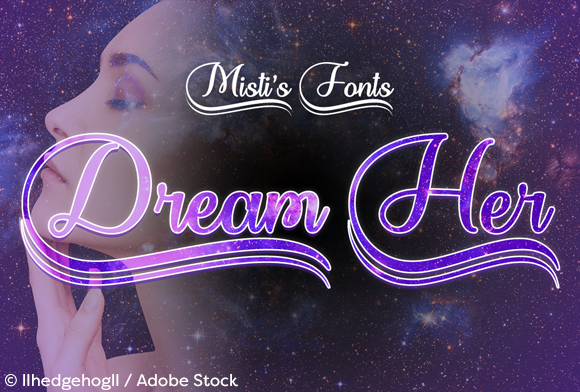
Dream Her Font
In a world of digital connections, the art of penmanship is experiencing a renaissance with Dream Her Font – an exquisite script typeface meticulously crafted to capture the elegance of handwritten calligraphy.
Unleash your creativity, let your words dance upon the screen, and bewitch your audience with invitations, logos, menus, book covers, and an array of design projects that radiate charm, sophistication, and a touch of whimsy.
Step into the realm of Dream Her Font, where each uppercase letter adorns itself with swashes – delicate flourishes that span 21 different lengths, adding a breathtaking dimension to your words. Tailor your designs with infinite customization options, transforming ordinary text into mesmerizing works of art.
Dream Her Font transcends linguistic boundaries, embracing most European languages, ensuring your message resonates with a global audience. Seamlessly blend your creations with existing designs, as this font family comes in both OTF and TTF formats, providing compatibility with a vast array of software.
With Dream Her Font, you'll embark on a creative odyssey, leaving a trail of typographical enchantment wherever your words may wander. From the heartfelt strokes of wedding invitations to the captivating allure of logos, menus, and book covers, this font will elevate your designs to new heights of visual appeal.